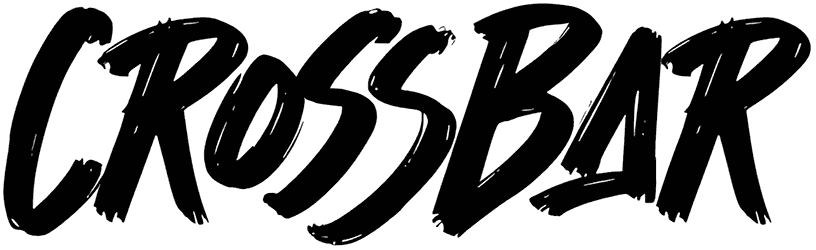
Crossbar Font
Are you looking to build a spotless, clean, and impressive brand? Crossbar might be the right choice. With the unique features that this brush font offers, it has managed to conquer the world of branding
Despite the lack of small letters and some numbers, it still has enough power to diversify your collection. This script font can bring your brand to the edge of design and is ideal for all name-seeking companies looking for a unique logo, packaging, or poster.